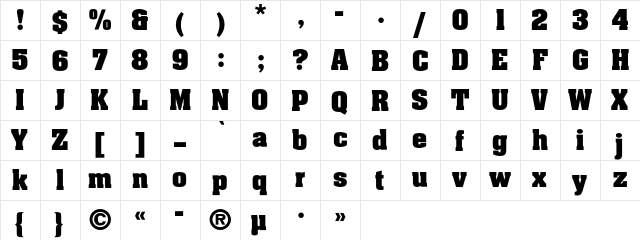
AGAalenC Regular
Design Context for AGAalenC Typeface
AGAalenC takes a measured approach to typography — its balanced proportions and neutral character make it a reliable workhorse for both digital and print work.